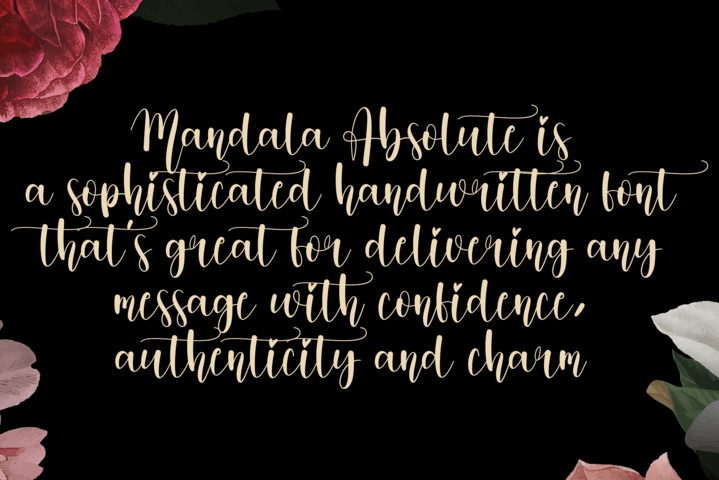
Mandala Absolute Font
Mandala Absolute Script Font
It’s a dazzling and highly detailed script font carefully created with a touch of elegance. This font is PUA encoded which means you can access all of the amazing glyphs and ligatures with ease!